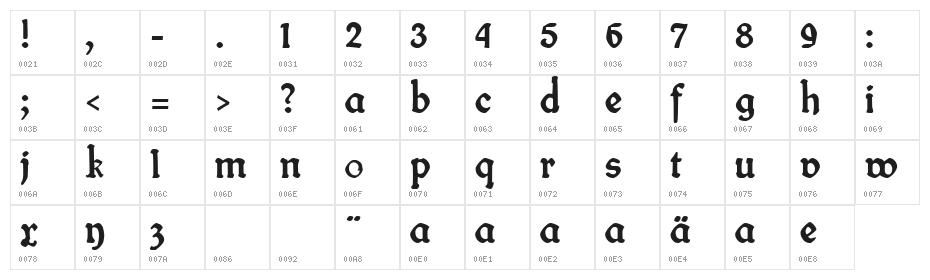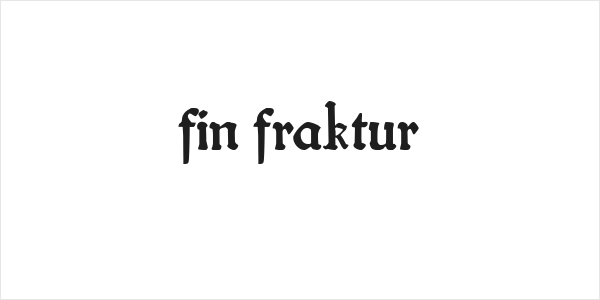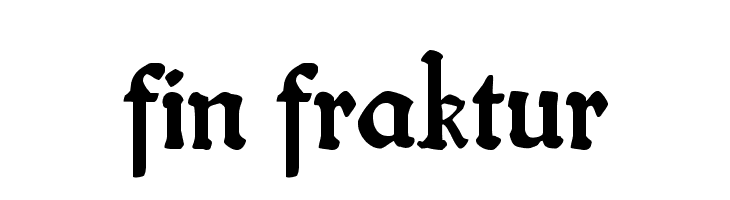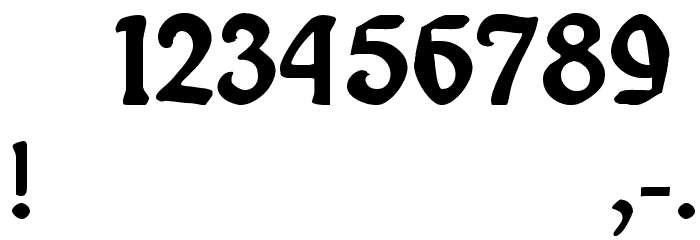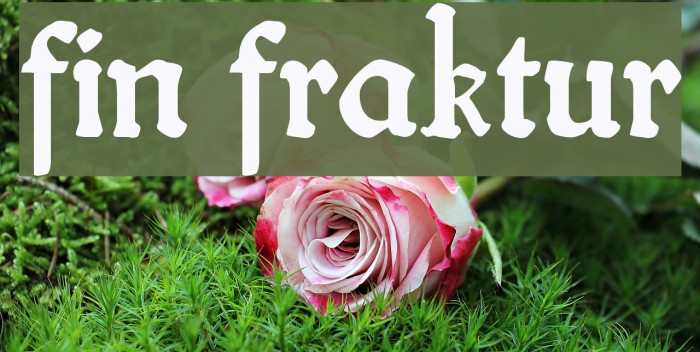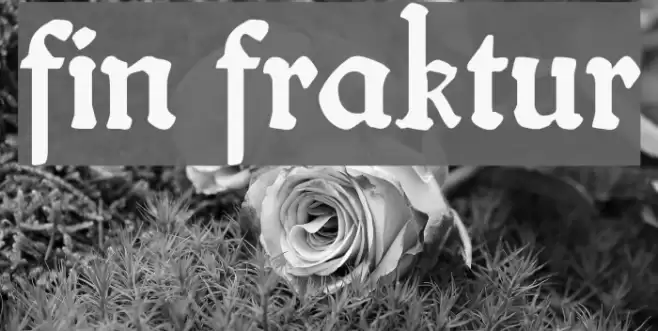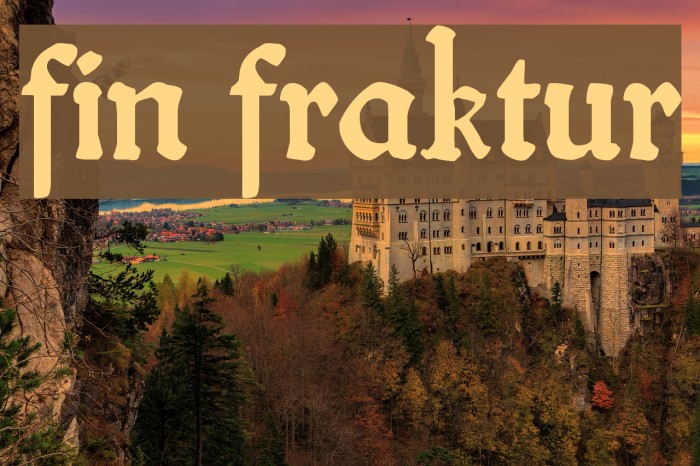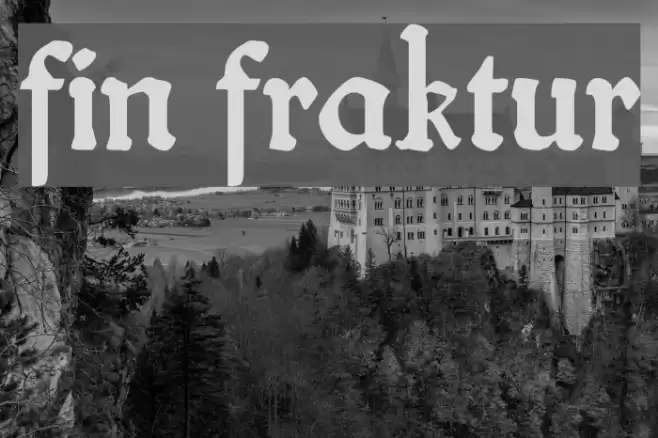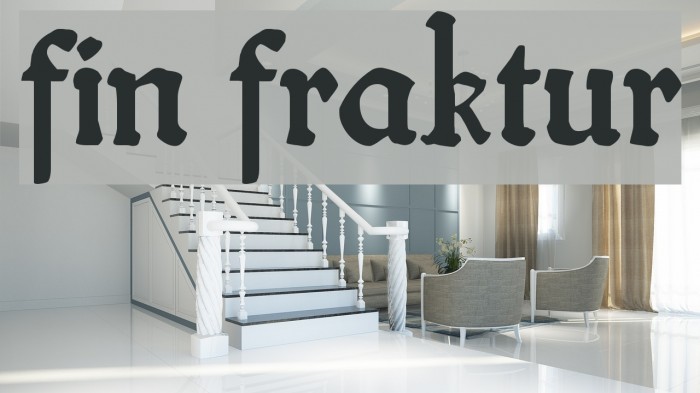
fin fraktur Font
fin fraktur Description
This font exhibits a classic blackletter style, characterized by its ornate and intricate design. The letters are bold and have a distinct medieval appearance, with sharp angles and decorative flourishes. The strokes are thick, providing a high contrast between the black ink and the white space. This style is reminiscent of traditional Gothic script, often used in historical documents and signage. The numbers and special characters maintain the same decorative style, ensuring consistency across all glyphs.
| Overall Style | Vintage |
| Use Case | Logos, Headlines, Decorative text |
| Proposed Projects | Ideal for projects that require a historical or vintage aesthetic, such as book covers, posters, or branding for traditional products. |